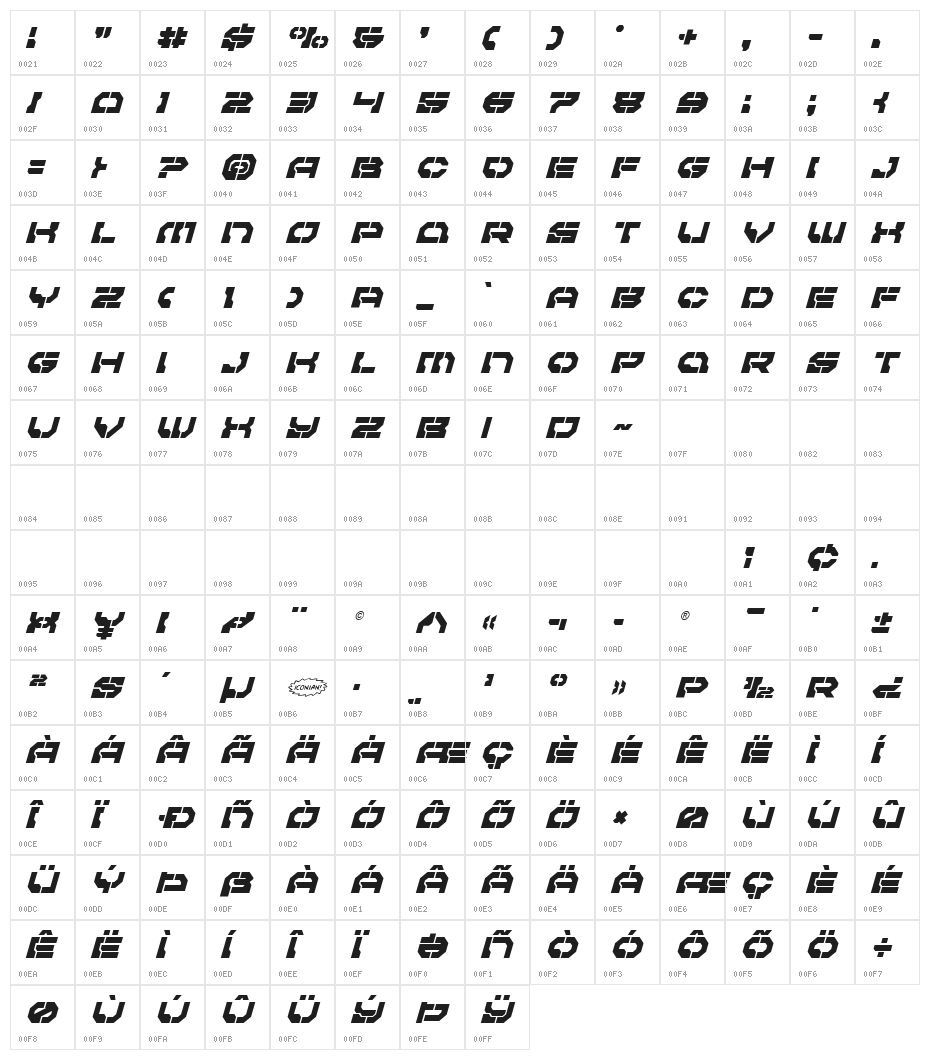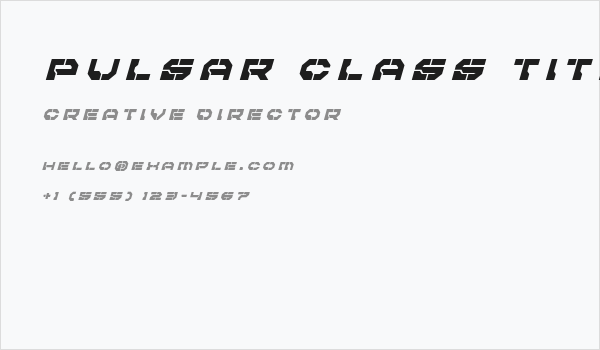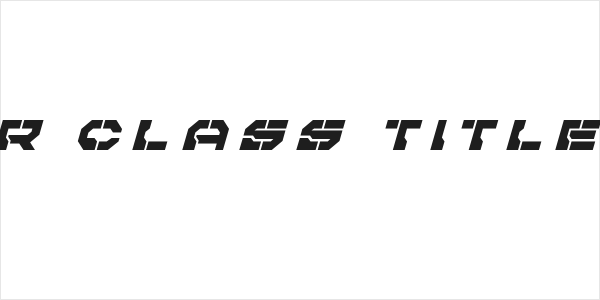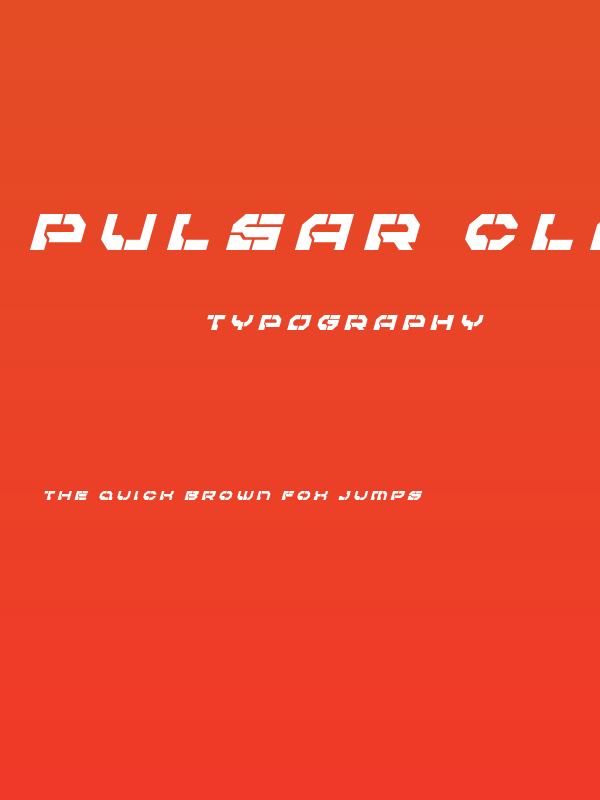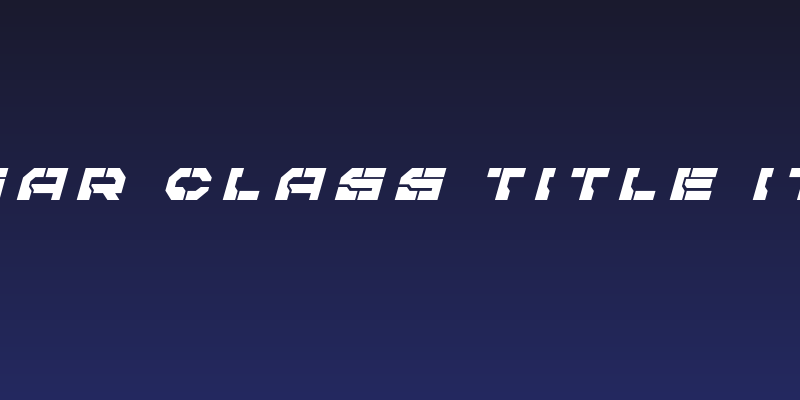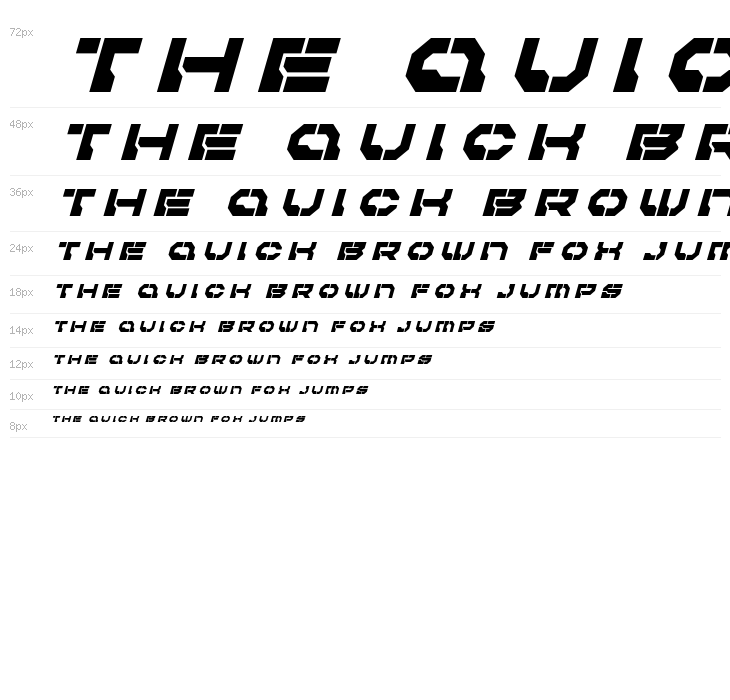
Pulsar Class Title Italic Font
Pulsar Class Title Italic Description
This font features a bold, futuristic design with a distinct italic slant, giving it a dynamic and forward-moving appearance. The characters are constructed with sharp, angular lines and geometric shapes, creating a sense of speed and modernity. The uppercase and lowercase letters maintain a consistent style, with the lowercase slightly smaller but equally impactful. Numbers and special characters follow the same design principles, ensuring uniformity across all elements. The font's bold weight and italic style make it stand out, ideal for attention-grabbing headlines or titles.
| Use Case | Headlines, Logos, Titles |
| Proposed Projects | Ideal for sci-fi themed projects, technology branding, video game titles, and dynamic posters. |